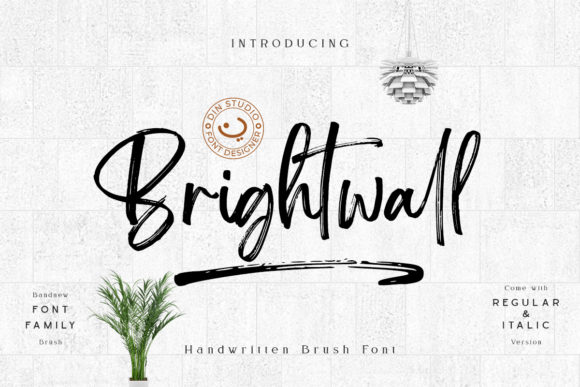
Introducing Brightwall Font, the ultimate choice for those seeking the perfect blend of elegance and modernity. Crafted with meticulous attention to detail by the brilliant minds at Din Studio, this script font is bound to captivate your senses and elevate your creative endeavors.
With its exquisite handwritten style, Brightwall Font exudes a timeless charm that effortlessly combines classic calligraphic influences with a contemporary twist. Every stroke and curve has been carefully crafted to create a truly unique and visually stunning typeface that stands out from the crowd.
Why settle for ordinary when you can embrace the extraordinary? Brightwall Font is here to add a touch of sophistication and creativity to your projects. Whether you're designing invitations, logos, branding materials, or any other artistic masterpiece, this font is guaranteed to make a lasting impression.
Unleash your imagination and let Brightwall Font transport you to a world of endless possibilities. Its versatility knows no bounds, making it the ideal choice for a wide range of purposes. From elegant wedding stationery to eye-catching social media graphics, this font effortlessly adapts to any design aesthetic, breathing life and personality into every word.
But it's not just about aesthetics. Brightwall Font is also designed with functionality in mind. Its legibility and readability ensure that your message is conveyed with clarity and impact. Say goodbye to dull and uninspiring typography and embrace the power of words that truly come alive.
Experience the joy of creating with Brightwall Font and witness your projects reach new heights. Let its enchanting curves and graceful strokes inspire you to push the boundaries of your creativity. Transform the ordinary into the extraordinary and leave a lasting impression on anyone who lays eyes on your work.